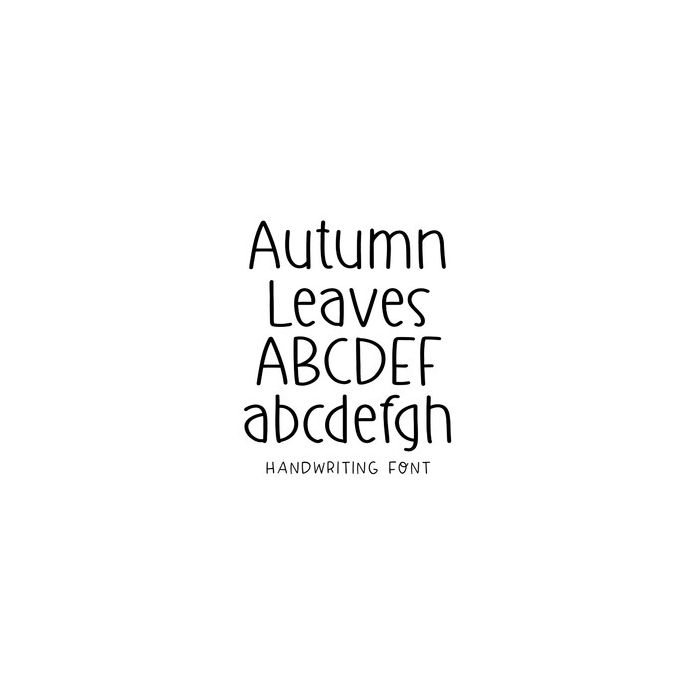
BFC Autumn Leaves Simple Handwriting Goodnotes Planner Font
Autumn Leaves is a simple and basic handwriting font. Perfect for goodnotes and digital planners.